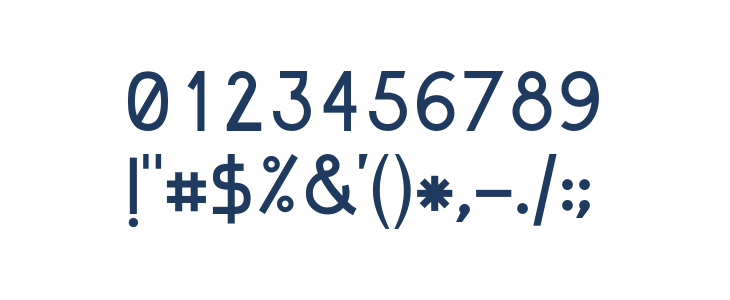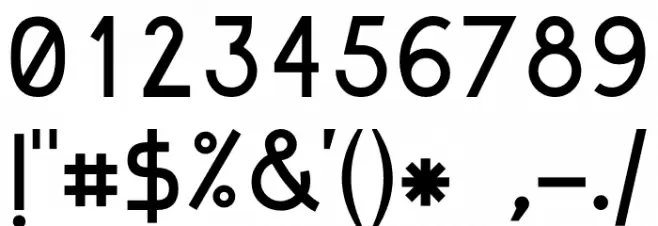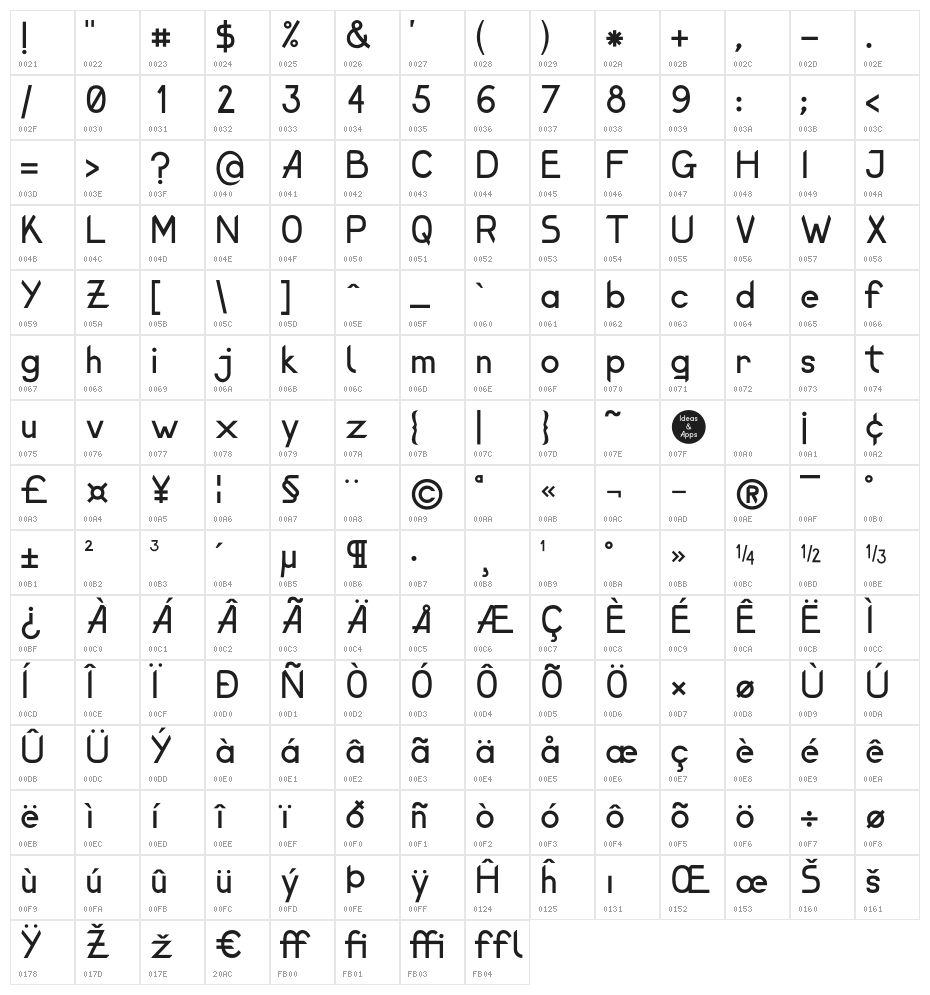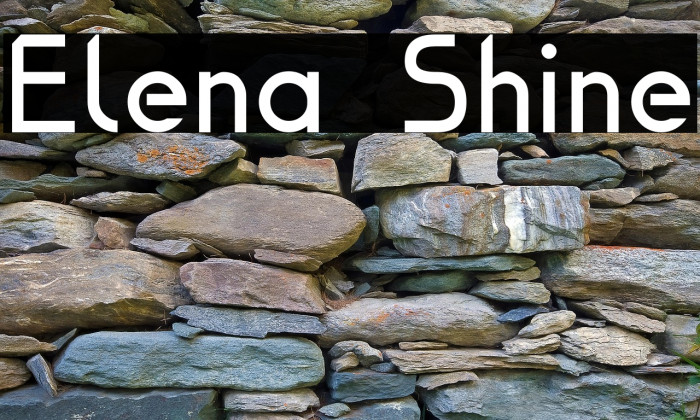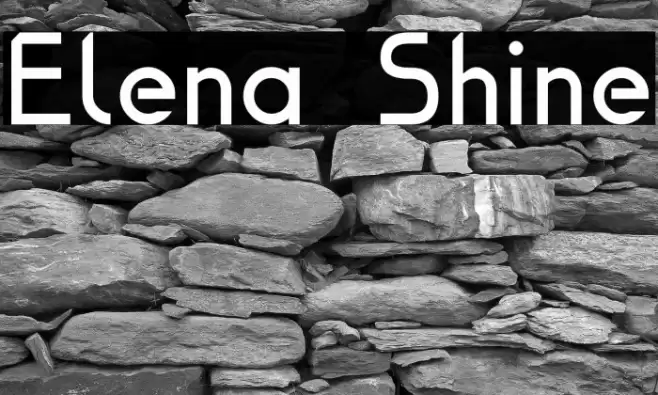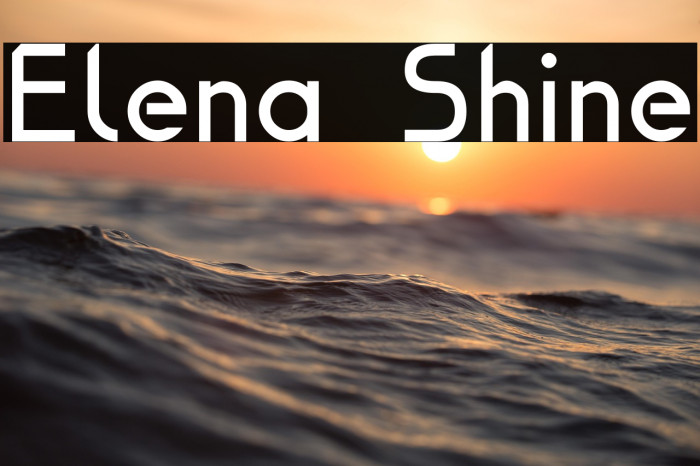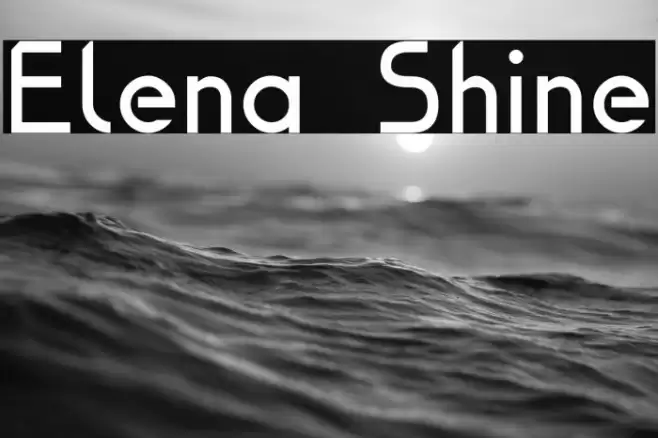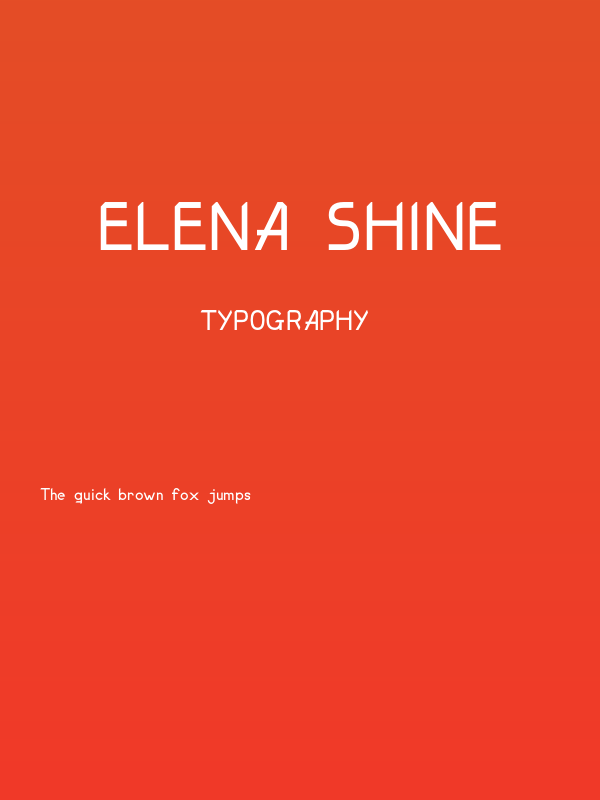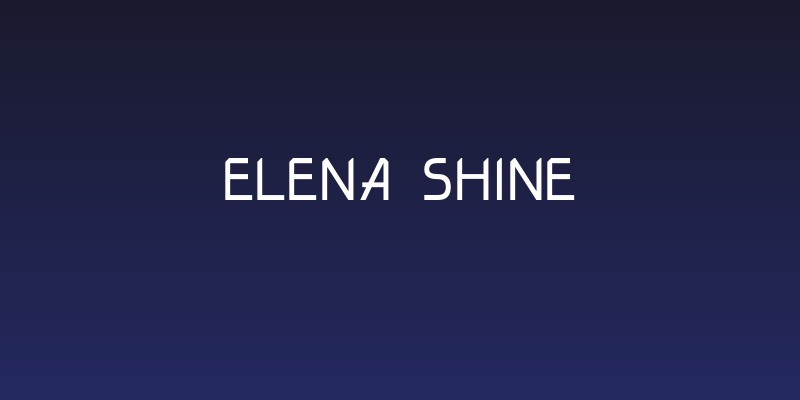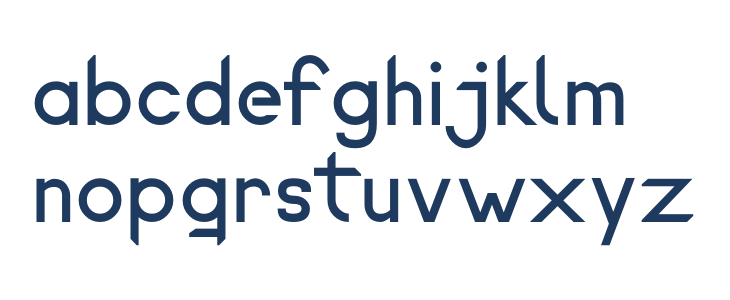
Elena Shine Font
Elena Shine Description
This font features a clean and modern sans-serif design, characterized by its geometric shapes and uniform stroke widths. The uppercase letters are bold and assertive, with a slightly condensed appearance that gives them a strong presence. The lowercase letters maintain a consistent style, with rounded edges that add a touch of softness to the overall look. The numerals are clear and legible, making them suitable for a variety of applications. Special characters are well-integrated, maintaining the font's cohesive aesthetic. This font's simplicity and clarity make it versatile for both digital and print media.